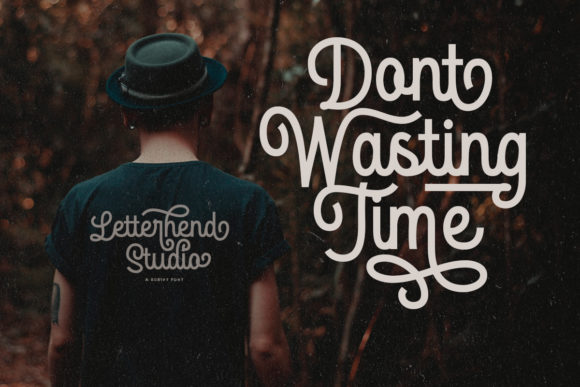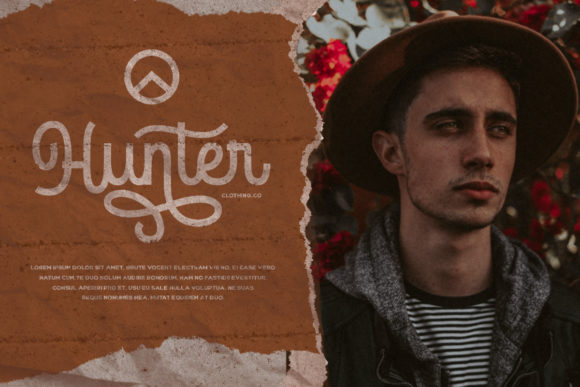
The Rouged Font
db-ku.com - Script & Handwritten -- The Rouged is sophisticated and charming, but also playful. This versatile font has a wide range of applications ranging from Instagram posts to covers, and is guaranteed to add a unique feel to your next design.